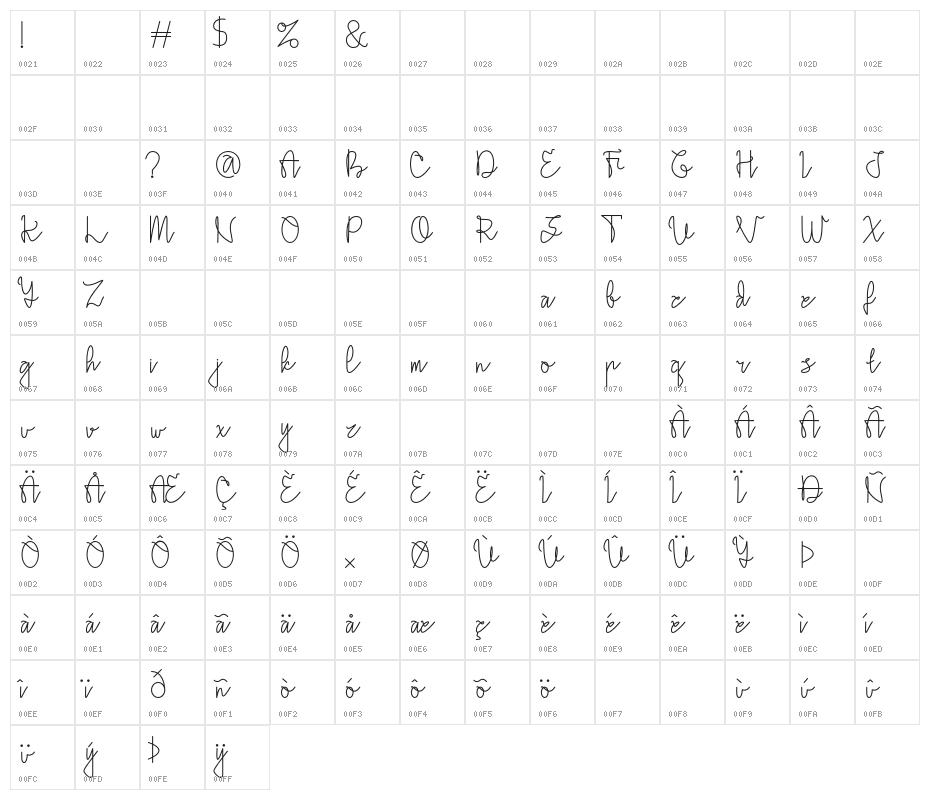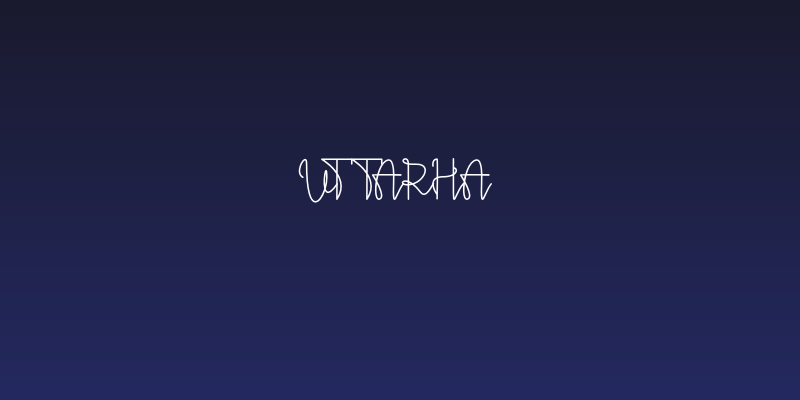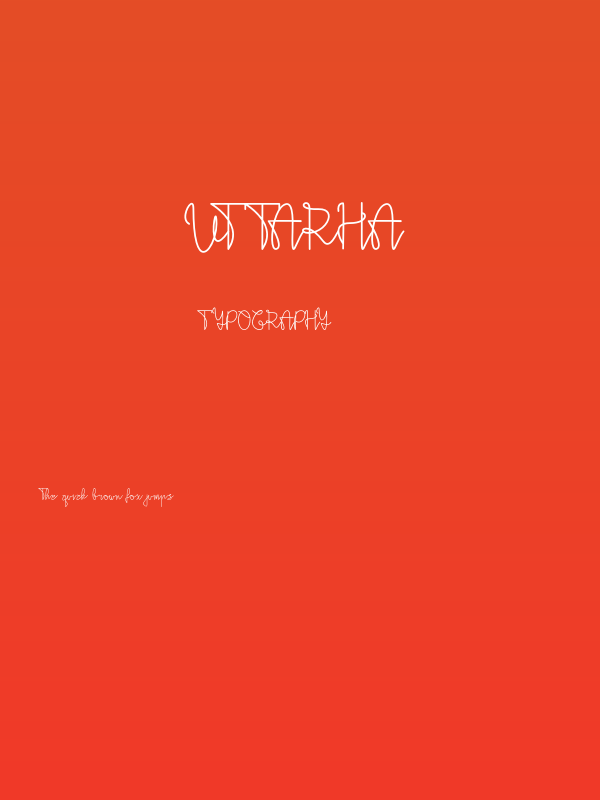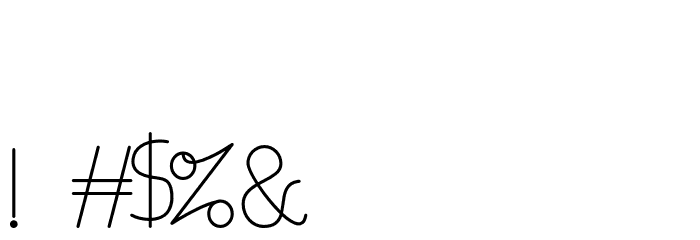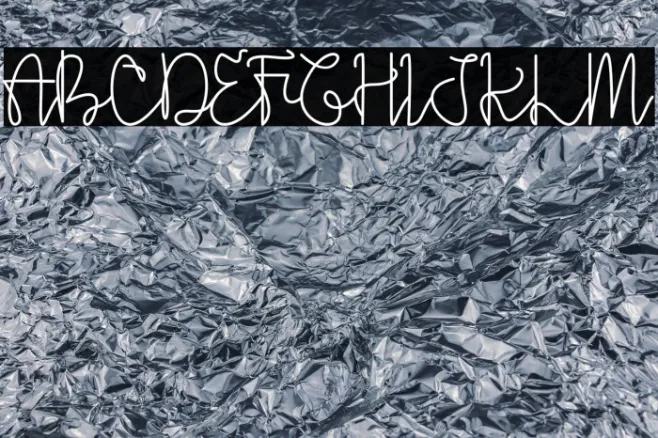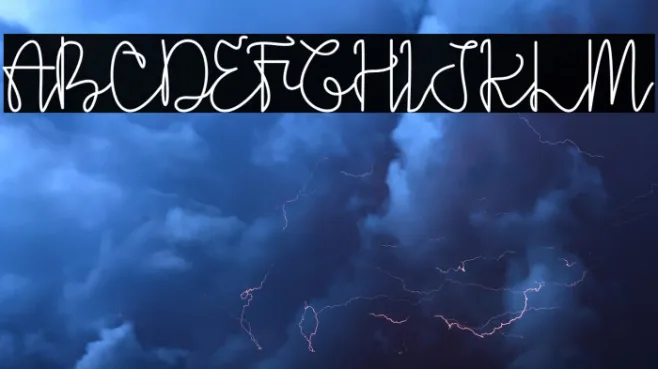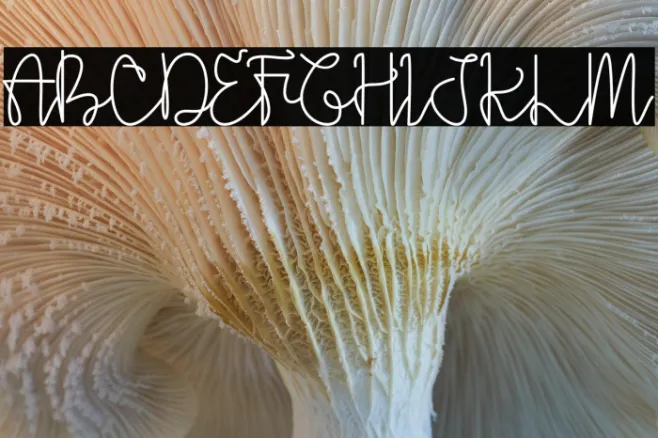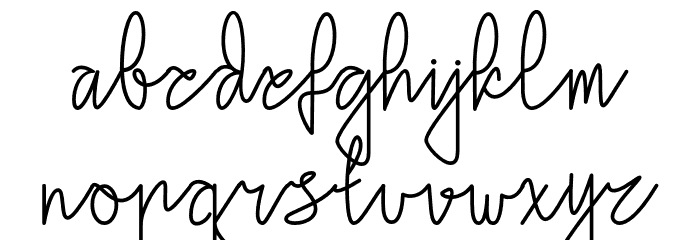
Uttarha Font
Uttarha Description
This font features a flowing, cursive style with elegant loops and swirls, giving it a handwritten appearance. The uppercase letters are tall and slender, with distinctive flourishes that add a touch of sophistication. The lowercase letters maintain a consistent flow, connecting smoothly to create a seamless script. The numerals and special characters are designed to match the overall aesthetic, with a playful yet refined look. This font is perfect for projects that require a personal touch, such as invitations, greeting cards, or branding materials.
| Proposed Projects | Ideal for wedding invitations, personal branding, greeting cards, and decorative signage. |